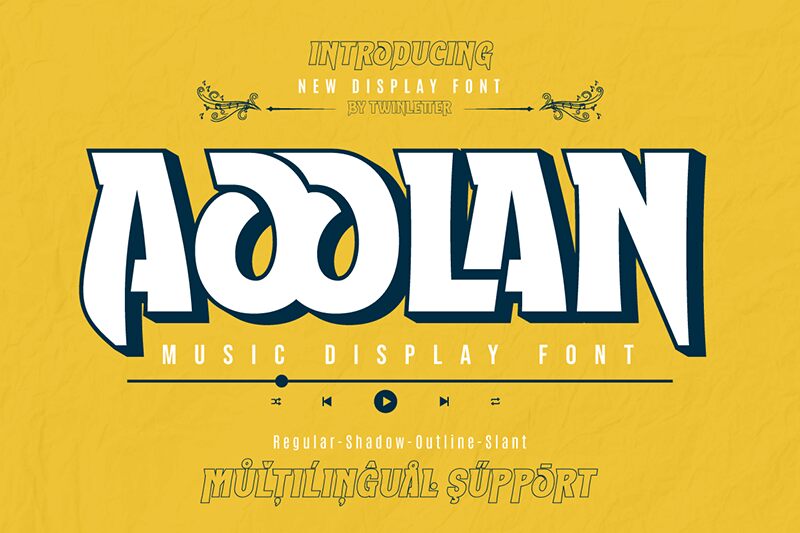
Aoolan font family by Twinletter consists of two free font styles, referencing elements found in the film industry. Each character of this fancy typeface is built by a single trace that creates its simple yet dynamic shapes. Incorporate it easily into high-impact projects where strong headers and letters are most suitable. Get it along with all your favorite fonts in a few clicks.
Aoolan suits futuristic branding projects and animation studio-friendly designs; let your titles stand out the most. Write your movie, animation, and documentary titles between the classic dynamic thought-out spaces. Use them for logotypes, book covers, website headlines, and desktop or social media graphics.